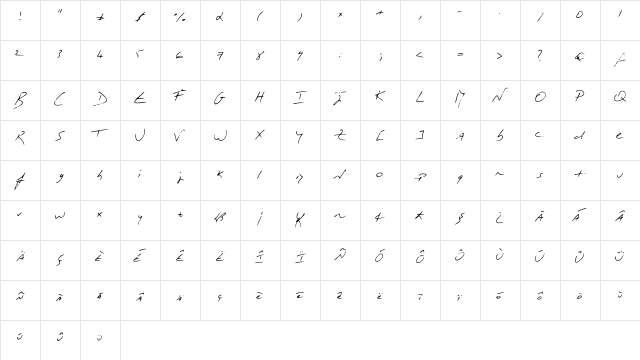
Mon___criture Medium
Design Context for Mon___criture
Mon___criture is a composed and adaptable typeface that performs quietly and consistently across a wide range of design contexts.